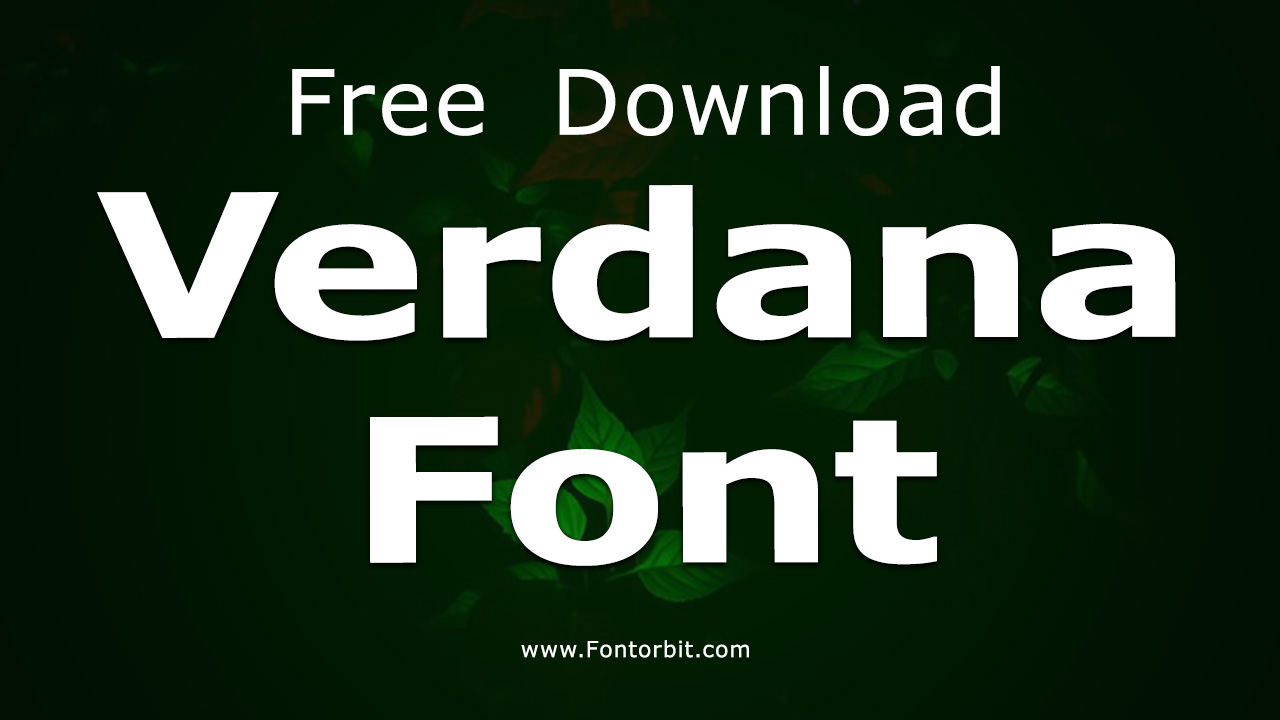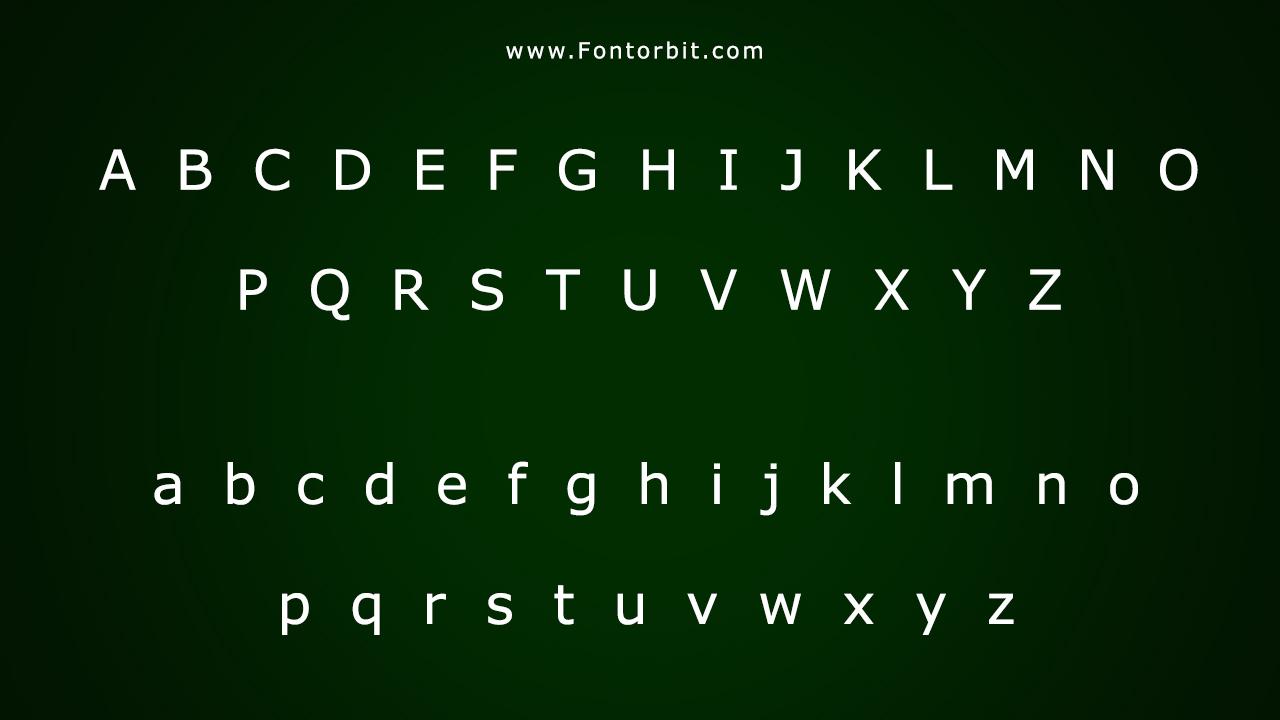
Matthew Carter designed the Verdana font, a humanist sans-serif typeface, for Microsoft Corporation. Thomas Rickner of Monotype meticulously hand-hinted it, gaining recognition for its readability and clarity, especially on screens.
This collaboration aimed to create a highly legible font for digital content. The demand for such a typeface was first recognized by Virginia Howlett of Microsoft’s typography group, and Steve Ballmer eventually commissioned it. The name “Verdana” is derived from the words “verdant” (green) and “Ana” (Howlett’s eldest daughter), symbolizing freshness and clarity.
The Verdana Font Family Includes
The Verdana Font family stands out for its simplicity and functionality, making it a versatile choice for both digital and print media. It is designed with wide proportions and generous spacing to ensure legibility, even at smaller sizes.
- Verdana Regular
- Verdana Italic
- Verdana Bold
- Verdana Bold Italic
Verdana Font’s clean, straightforward design makes it ideal for a wide range of applications. Its legibility and adaptability to various screen resolutions make it particularly suited for:
- Presentations
- Email Newsletters
- Advertising Copy
- Corporate Reports
- Blog Content
If you’re looking for fonts similar to Verdana Font that provide a comparable balance between simplicity and functionality, consider these alternatives:
- Aroania
- Verdana Now
- MS Reference Sans Serif
- Mono Spatial
- Bitstream Vera Sans
Since introducing Verdana Font in 1996, designers have made it synonymous with readability and clarity in digital environments. Designed to meet the needs of screen typography, it remains one of the most popular and versatile fonts for both digital and print applications. Its clean, modern look continues to make it a go-to choice for web designers, advertisers, and corporate branding professionals.
1.What Font Does Microsoft Use For Web Design?
Microsoft has widely implemented Verdana as a standard font for web design, known for its readability on screens.
2.What Fonts Are Similar To Verdana?
Fonts similar to Verdana include Arial, Tahoma, and Lucida Sans, all of which are humanist sans-serif typefaces designed for readability.
3.Why Was Verdana Font Created?
Designers created Verdana in response to the need for a highly legible font for on-screen use, especially at smaller sizes, while maintaining clarity.
4.What Makes Verdana Font Different From Other Sans-Serif Fonts?
Verdana’s wide proportions, generous spacing, and design specifically tailored for screen use distinguish it from other sans-serif fonts.
5.What Are Popular Uses Of Verdana Font?
Verdana is often used in web design, presentations, email newsletters, corporate reports, and user interfaces, where readability is crucial.